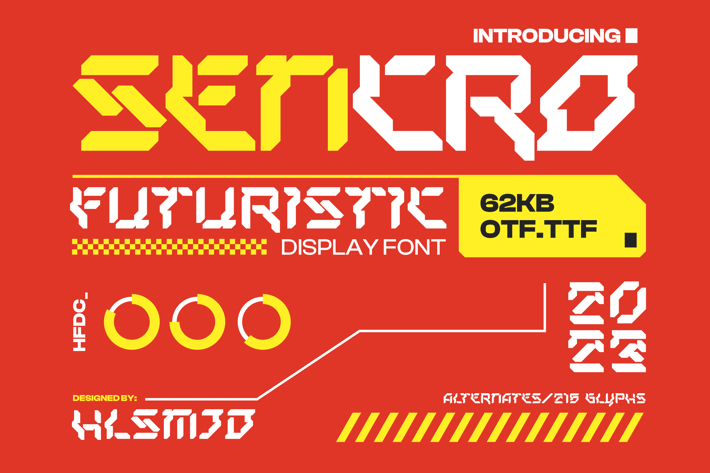
Sencro Typeface
Holismjd
Sencro is a font inspired by mecha and robot designs that has a modern and technologically advanced feel.
All caps
Numeral
Symbol
* Multilingual